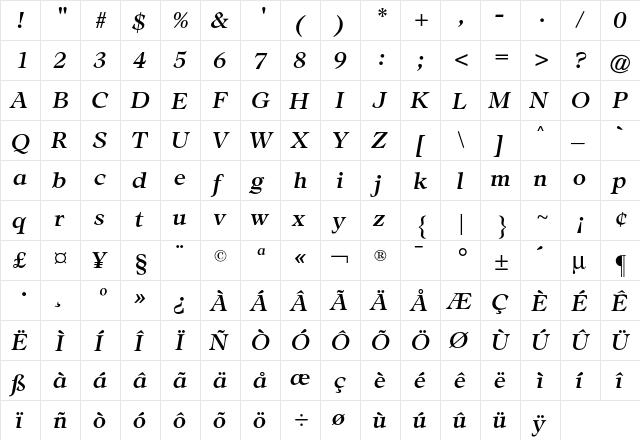
Adroit CG Medium Italic
Design Context for Adroit CG Medium Typeface
Adroit CG Medium takes a measured approach to typography — its balanced proportions and neutral character make it a reliable workhorse for both digital and print work. Its italic angle brings a sense of urgency and motion to the letterforms.
Pro Tip: Try Adroit CG Medium for annotation and caption copy alongside an upright companion — the contrast in angle creates a dynamic but ordered typographic system.